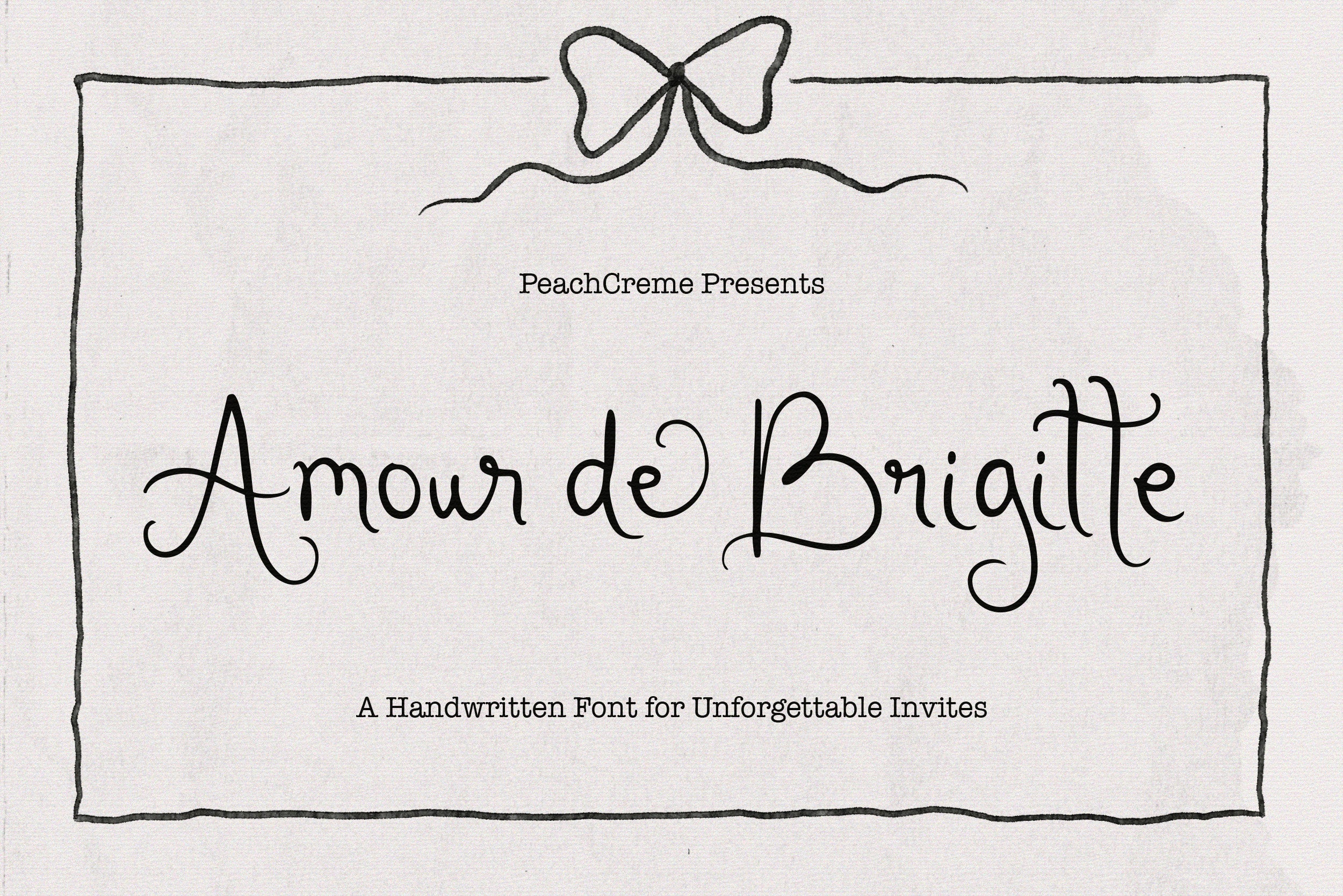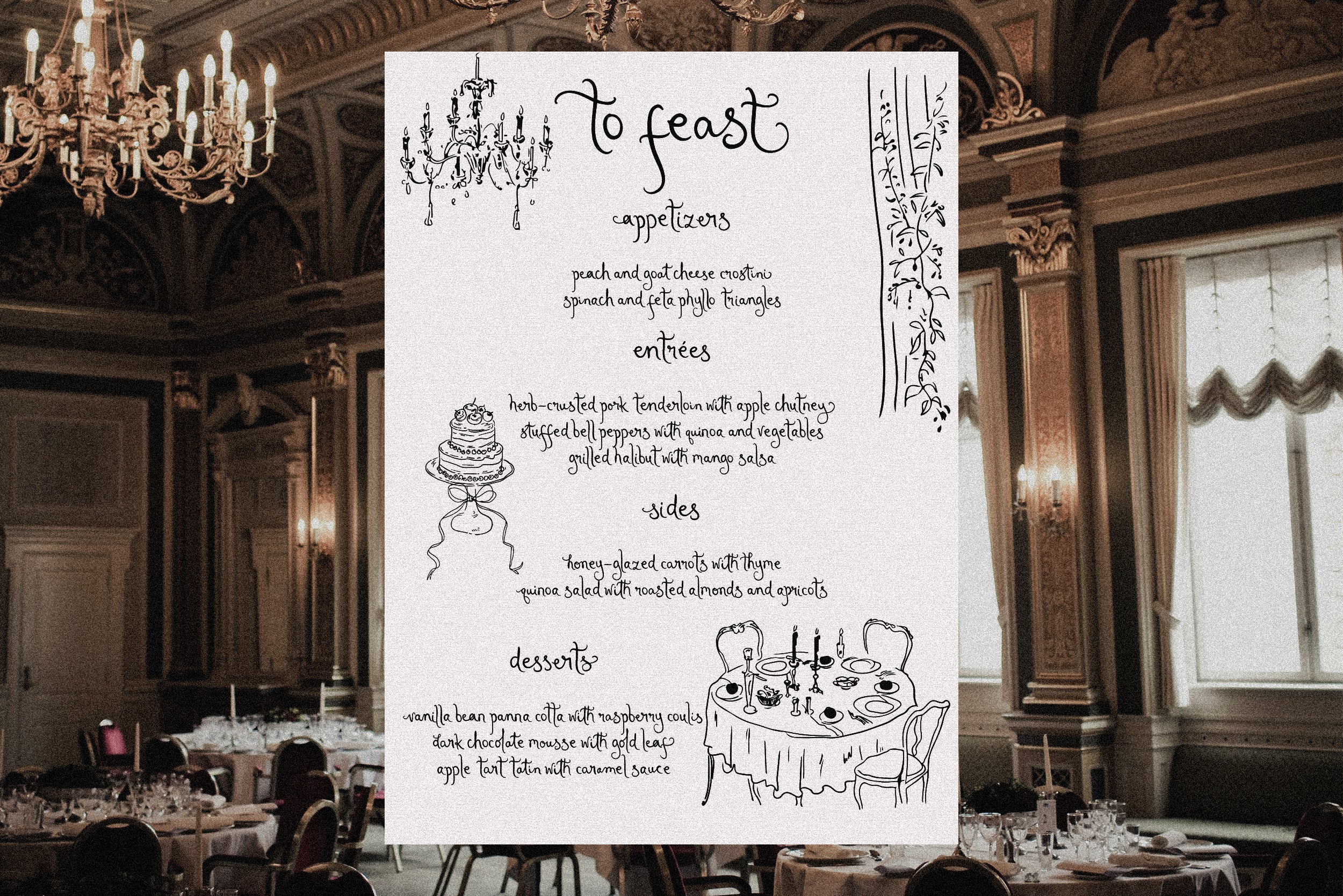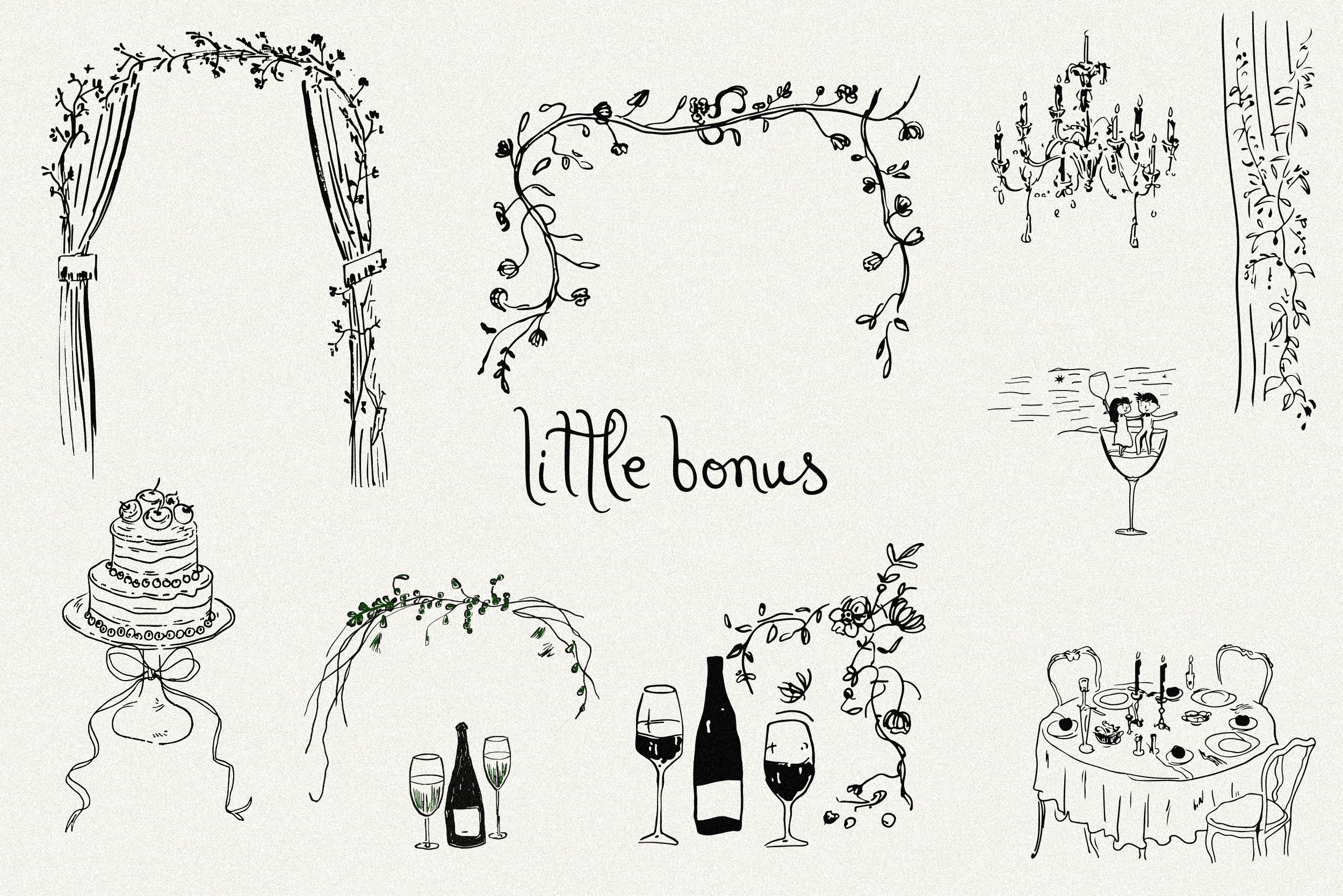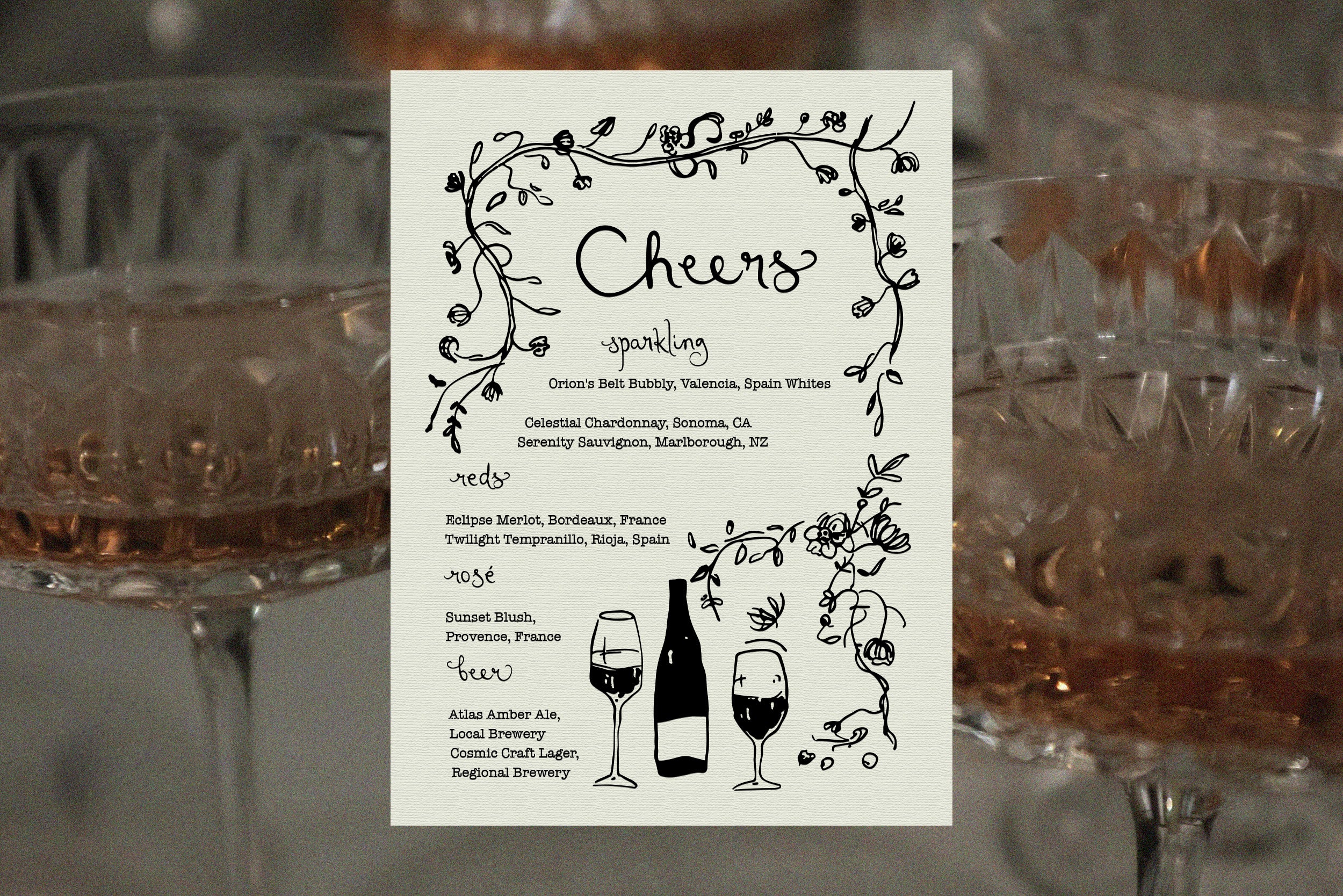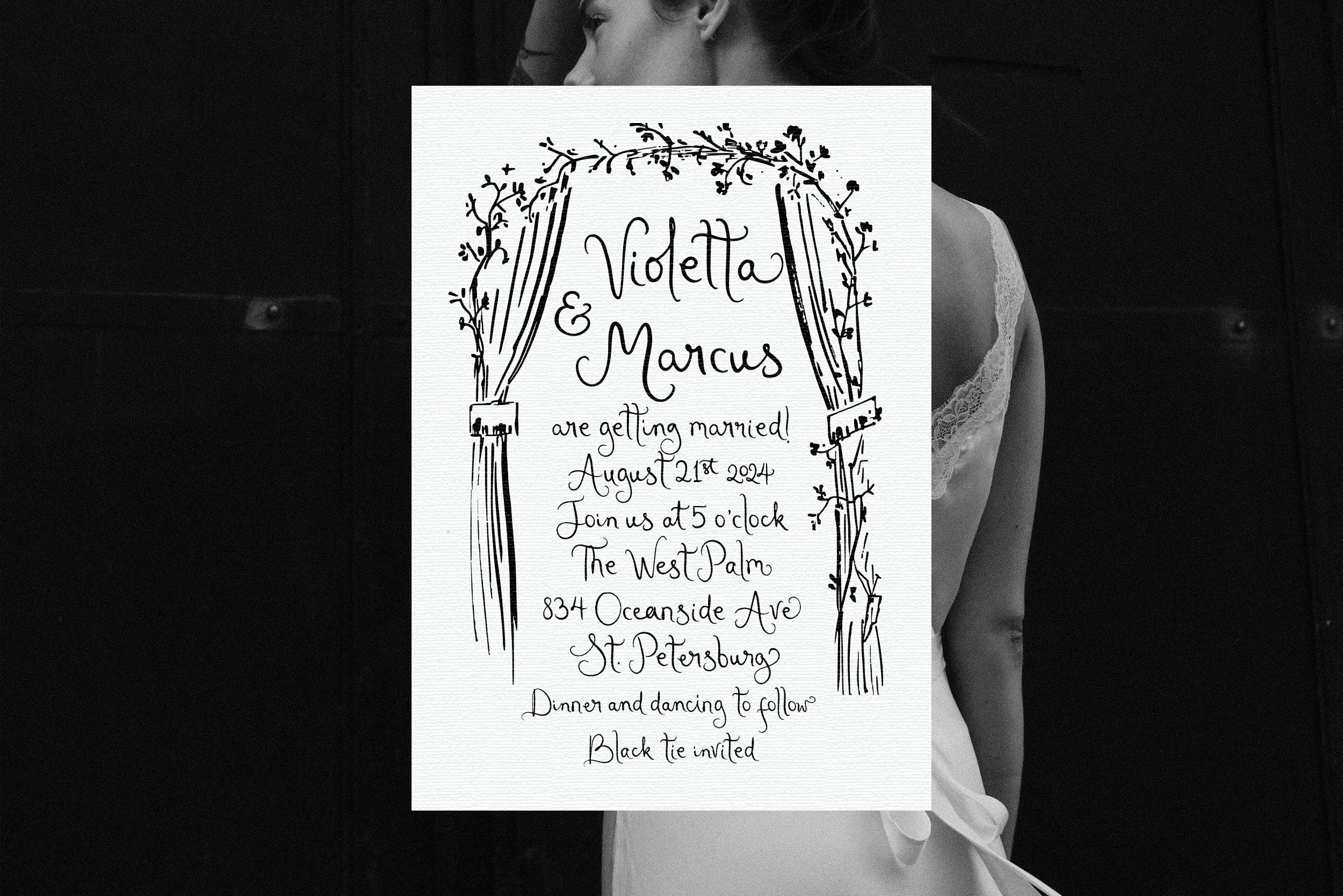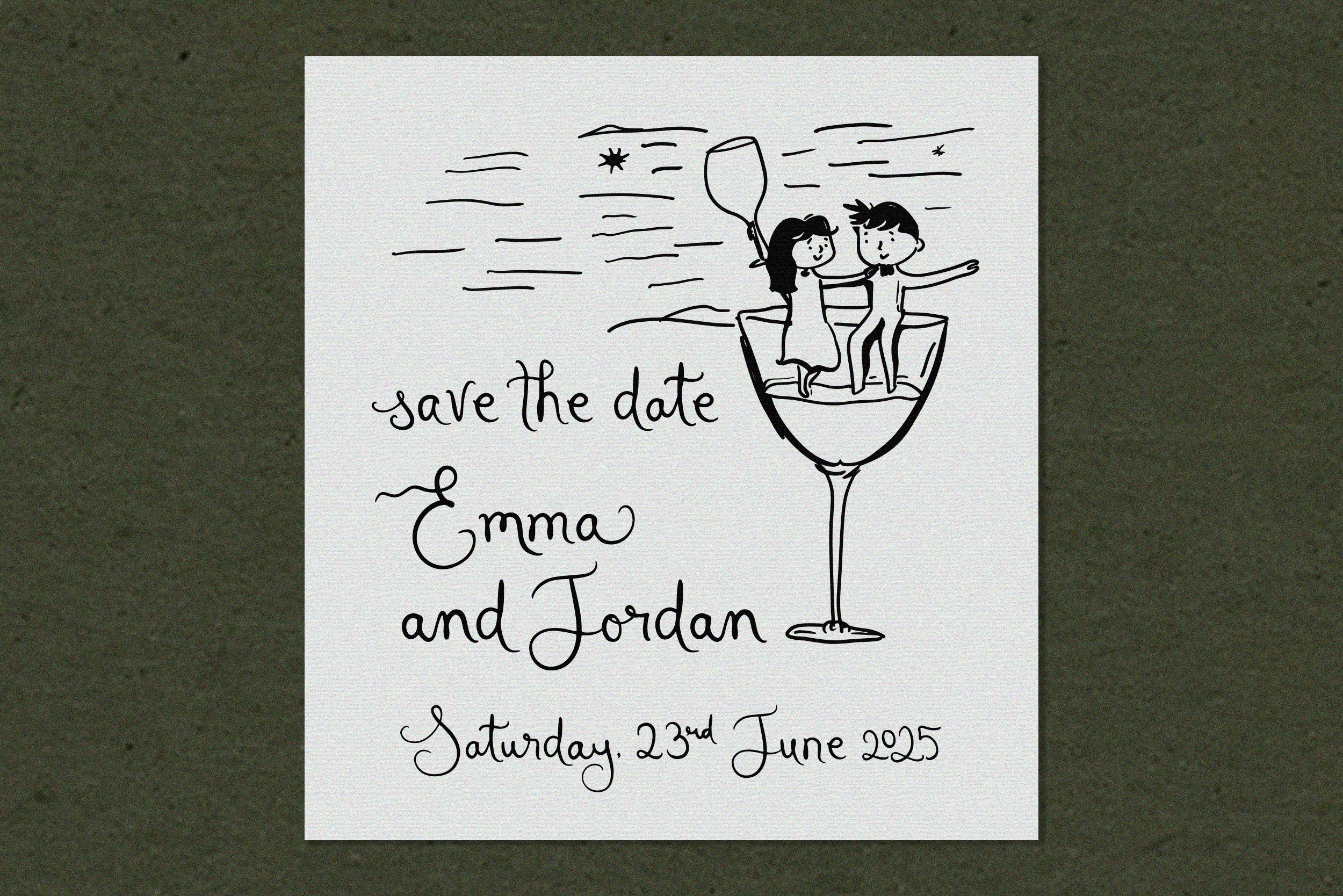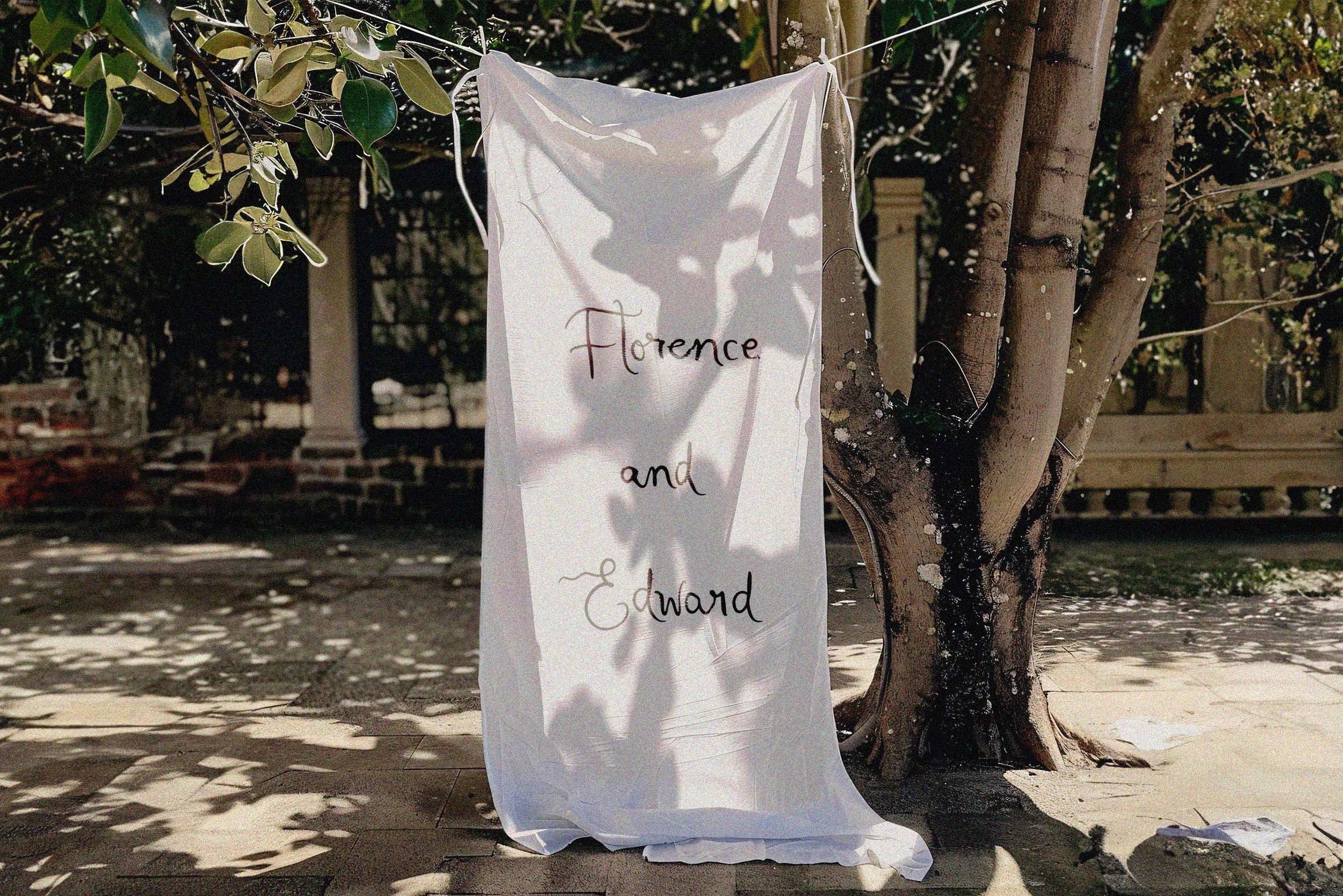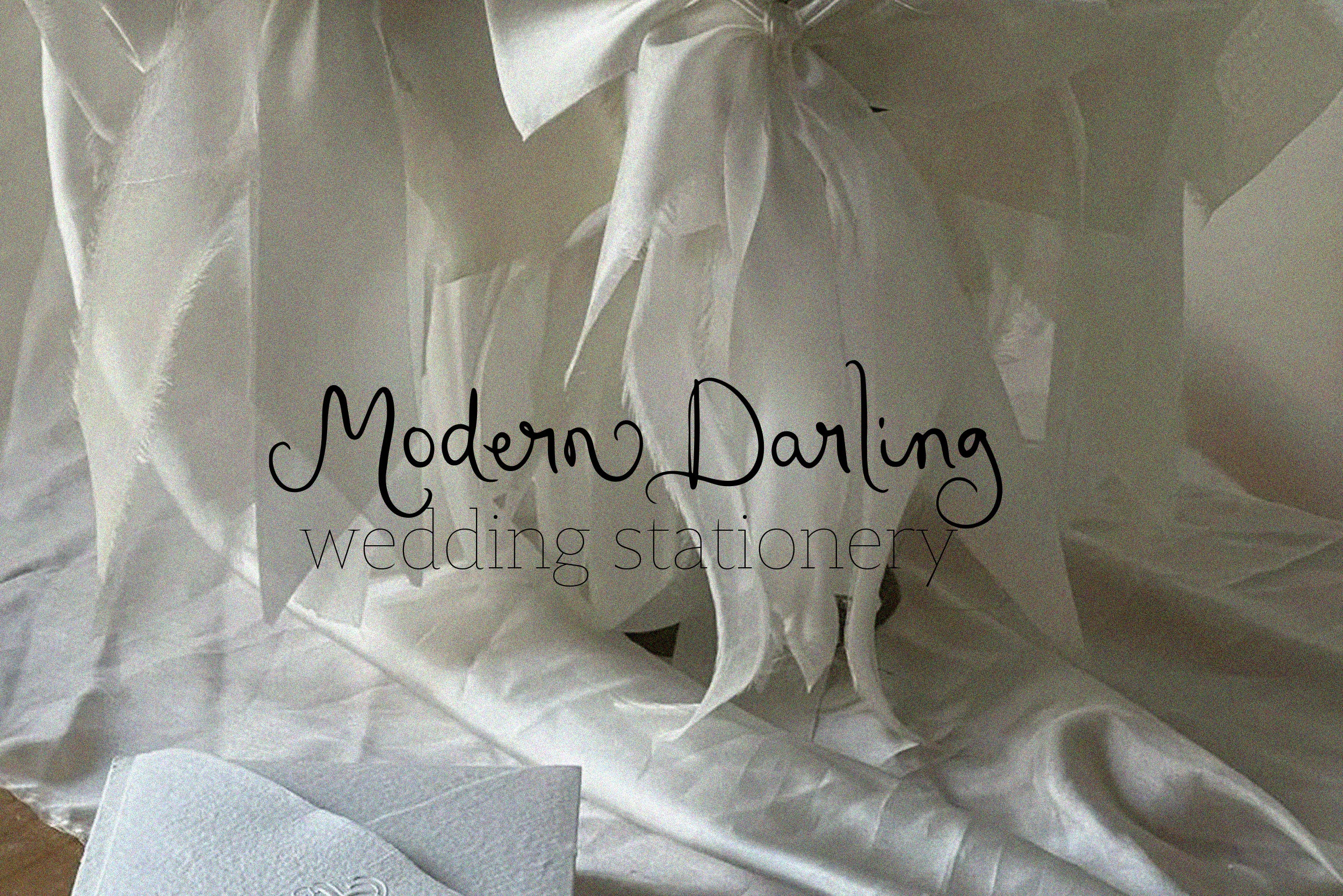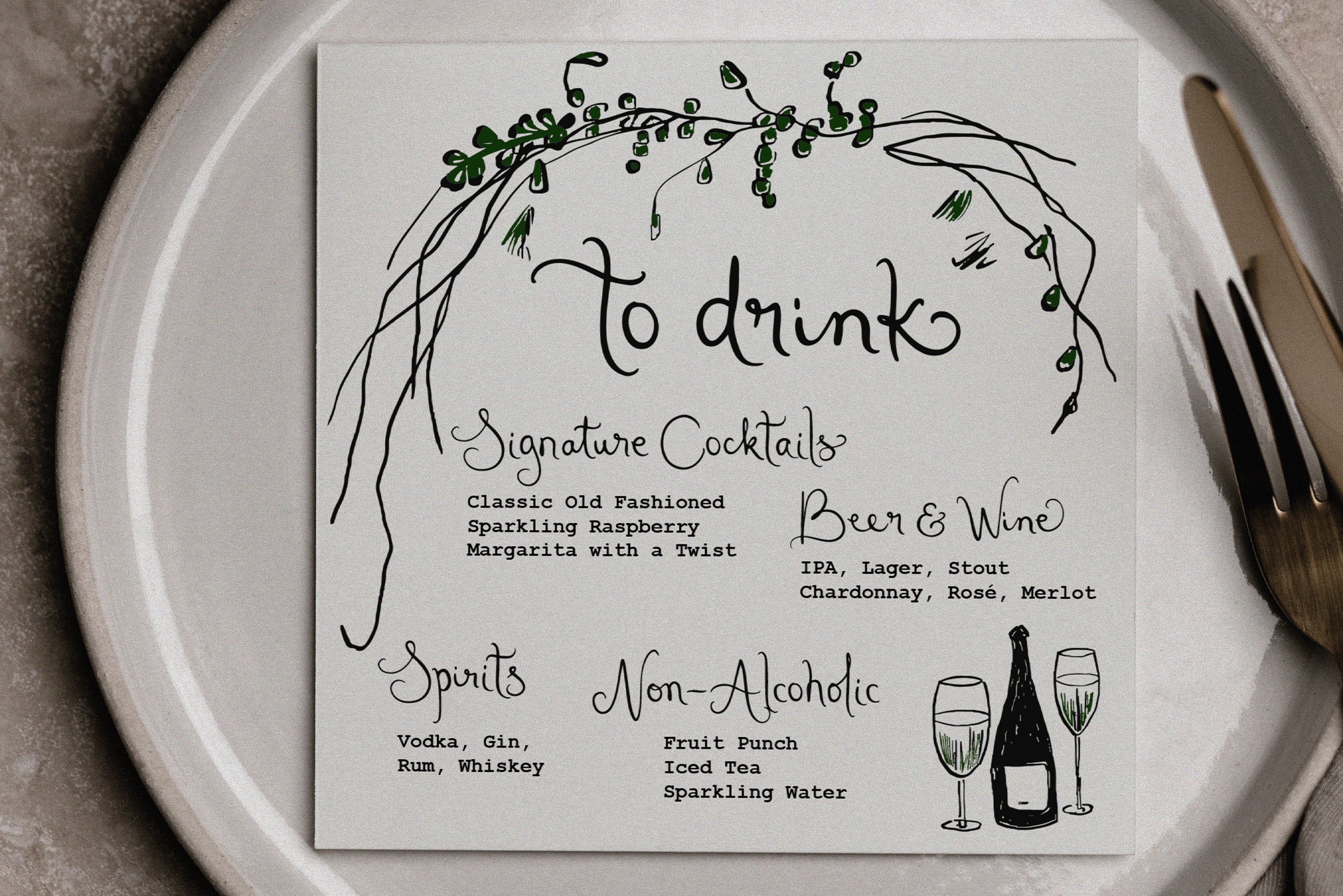
Amour de Brigitte // Quirky font
"Amour de Brigitte" is a contemporary font distinguished by its playful yet sophisticated design, ideally suited for the evolving aesthetics of wedding invitations and stationery in 2024-2025.
The character set of "Amour de Brigitte" includes alternative letters and swashes for the lowercase, enhancing both the beginning and end of words. This allows for a customizable and unique touch in every application.